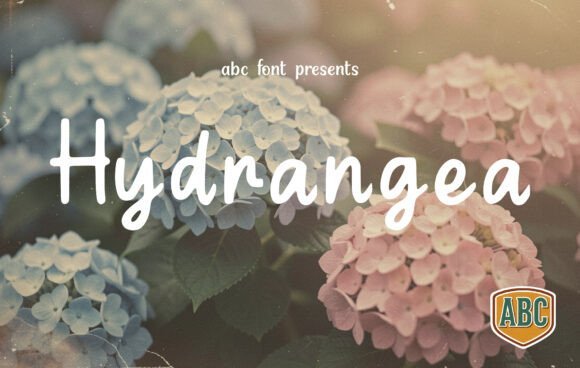
When Words Come Alive
Have you ever been inspired by a beautiful handwritten quote on a greeting card or a wedding invitation? The delicate touch of a handwritten font can evoke emotions and create a lasting impression. For designers, finding the perfect font can be a game-changer in making their designs stand out.
Enter the lovely Hydrangea Font, a timeless and elegant handwritten font that is perfect for creating eye-catching logos, branding, and quotes. With its unique and beautiful touch, every letter comes alive, making your design truly special. Whether you’re creating wedding stationery, journals, or product packaging, Hydrangea Font is a valuable asset for any designer looking to add a personal touch to their work.
Key Features of Hydrangea Font
- Unique Characteristics: Elegant, flowing script with subtle texture and organic feel, perfect for invitations, wedding stationery, and other special occasions
Hydrangea Font Review
Overall, I think Hydrangea Font is a unique and lovely font that has its strengths and weaknesses. Here are my thoughts:
- Whimsical and elegant feel: Hydrangea Font has a beautiful, flowing style that’s perfect for feminine designs, wedding invitations, and other creative projects.
- High-quality vector graphics: The font’s design is crisp and clear, making it suitable for both print and digital applications.
- Wide range of languages supported: Hydrangea Font includes support for a variety of languages, making it a great choice for multilingual designs.
- Not ideal for bold or dramatic designs: While Hydrangea Font is great for delicate, elegant designs, it may not be the best choice for projects that require a bold or dramatic font.
- May be difficult to read in certain sizes: The font’s flowing style can make it challenging to read in smaller sizes, so it’s essential to test it at various sizes before using it in your design.
Hydrangea Font is a beautiful, high-quality font that’s perfect for feminine, elegant designs. While it may not be the best choice for every project, it’s an excellent addition to any font collection. With its unique style and high-quality design, I would recommend it to anyone looking for a beautiful, whimsical font.
Hydrangea Font: A Practical Application Guide
Tips for Getting the Most Out of Hydrangea Font
1. Use the Hydrangea Font for titles, headings, and other emphasis text.
2. Experiment with different font sizes and styles to create visual interest.
3. Pair the Hydrangea Font with other fonts to create a unique and visually appealing design.
2. Floral-themed designs and illustrations.
3. Luxury brand logos and packaging.
Alternatives to Hydrangea Font
Great Vibes is a beautiful, elegant script font that is perfect for creating a romantic or vintage feel in your designs. It is ideal for use in invitations, wedding designs, or any project that requires a touch of sophistication.
Compared to Hydrangea Font, Great Vibes has a more refined and delicate appearance, making it a better choice for projects that require a high level of elegance. While Hydrangea Font has a more playful feel, Great Vibes is more suited for formal or high-end designs.
Carolyna Pro is a modern script font that is perfect for creating a sophisticated and elegant look in your designs. It is ideal for use in branding, packaging, or any project that requires a touch of luxury.
Compared to Hydrangea Font, Carolyna Pro has a more refined and modern appearance, making it a better choice for projects that require a high level of sophistication. While Hydrangea Font has a more playful feel, Carolyna Pro is more suited for high-end or luxury designs.
Alex Brush is a beautiful, elegant script font that is perfect for creating a romantic or vintage feel in your designs. It is ideal for use in invitations, wedding designs, or any project that requires a touch of sophistication.